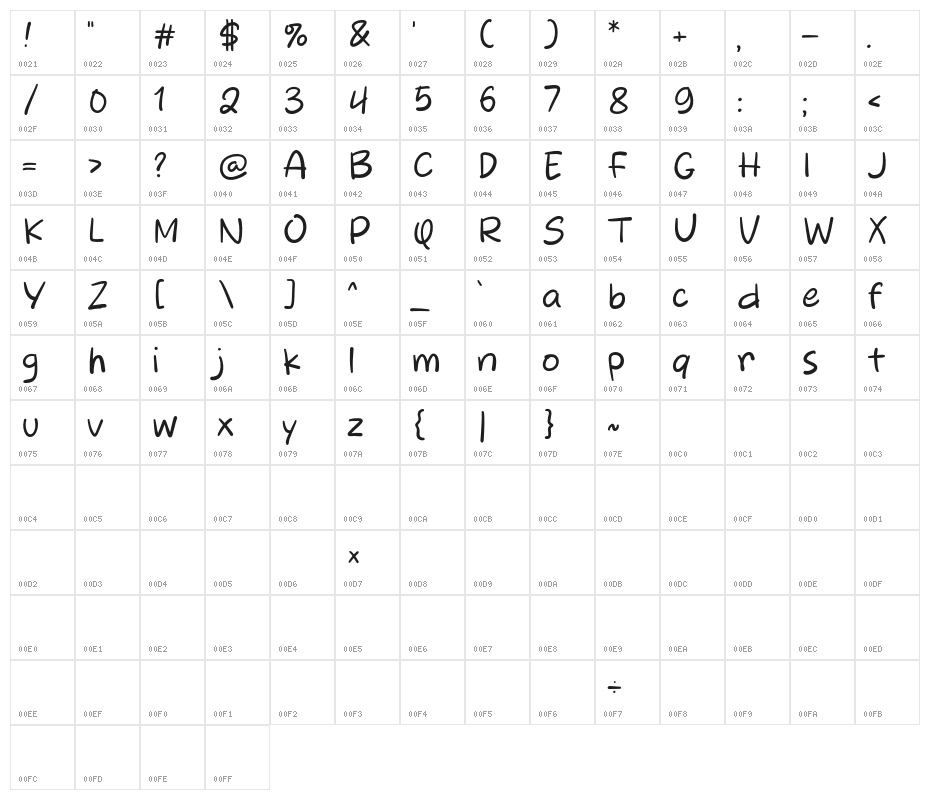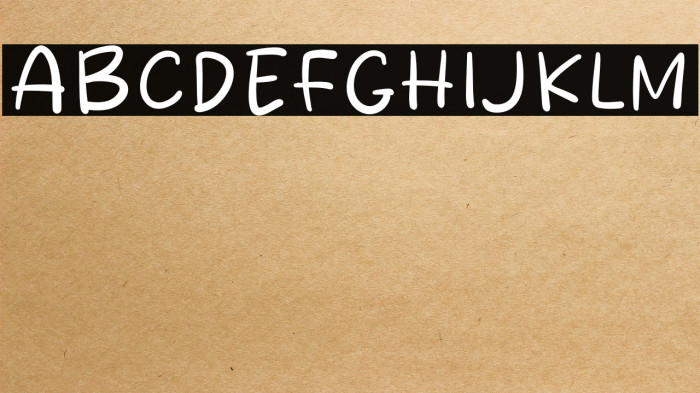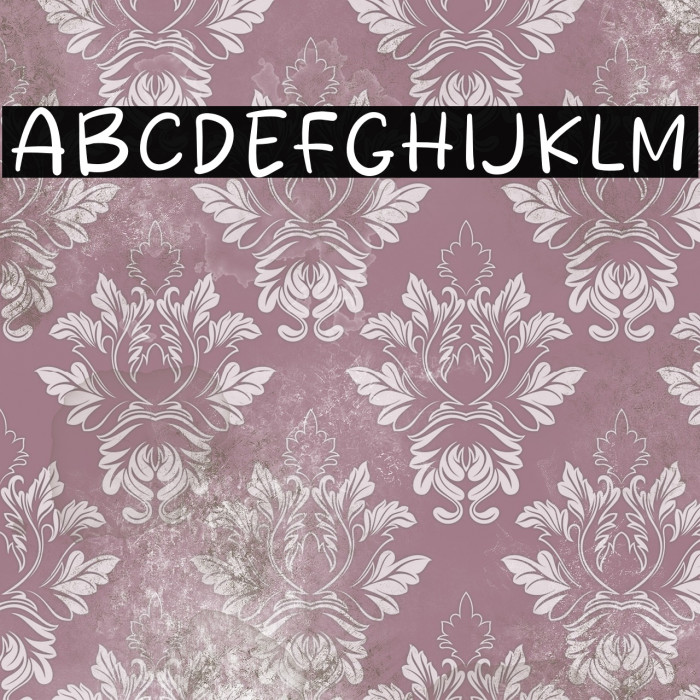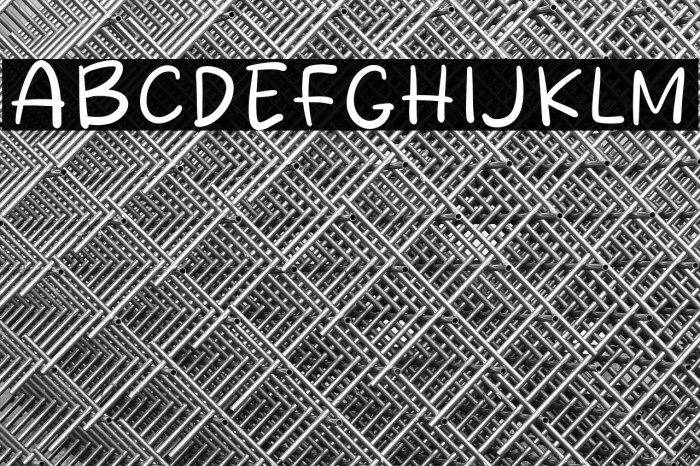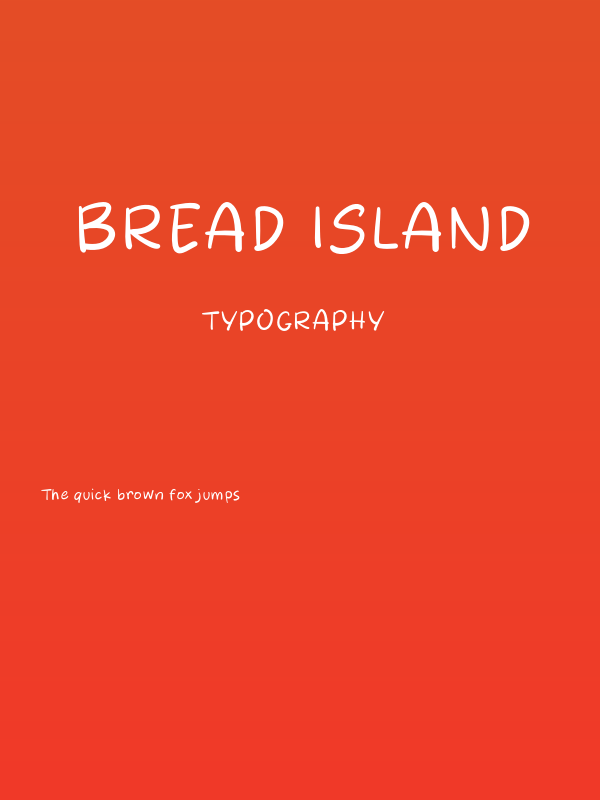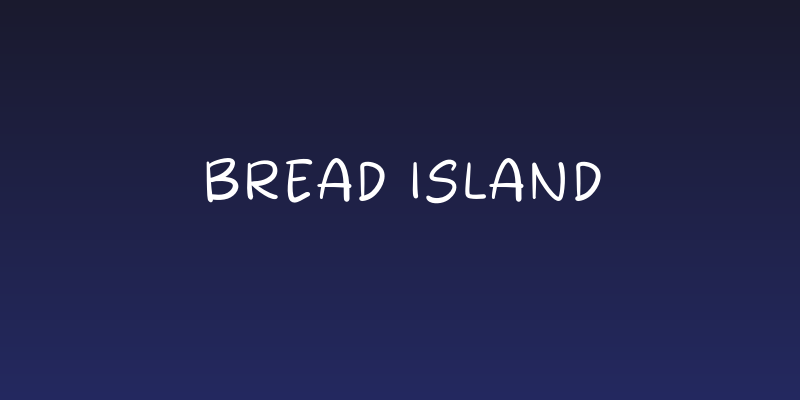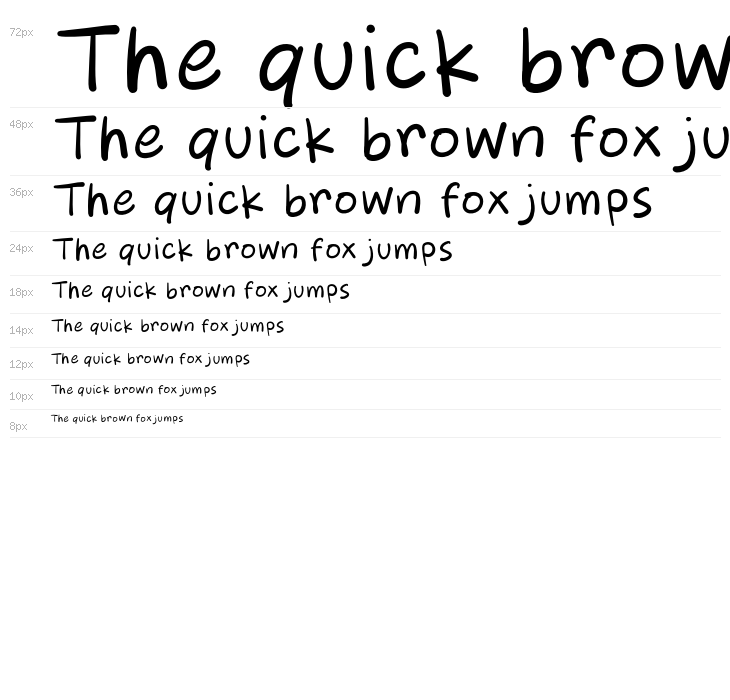
Bread Island Font
Bread Island Description
This font features a playful and casual handwritten style, characterized by its rounded and slightly irregular letterforms. The strokes are consistent in weight, giving it a uniform appearance while maintaining a friendly and approachable vibe. The characters are well-spaced, ensuring readability, and the overall design exudes a sense of informality and warmth. The font includes a full set of uppercase and lowercase letters, numbers, and a variety of special characters, making it versatile for different uses.
| Overall Style | Casual |
| Use Case | Headlines, Informal text, Creative projects |
| Proposed Projects | Ideal for children's books, greeting cards, casual branding, and social media graphics. |